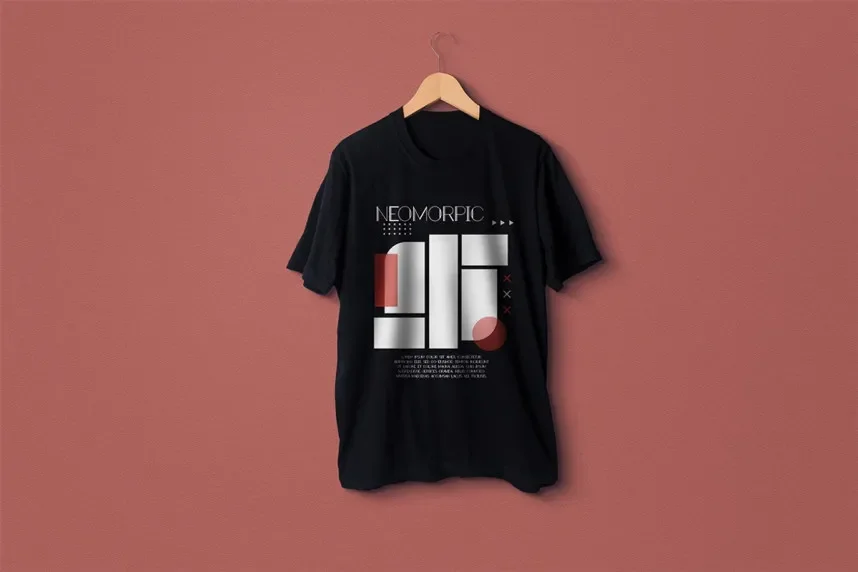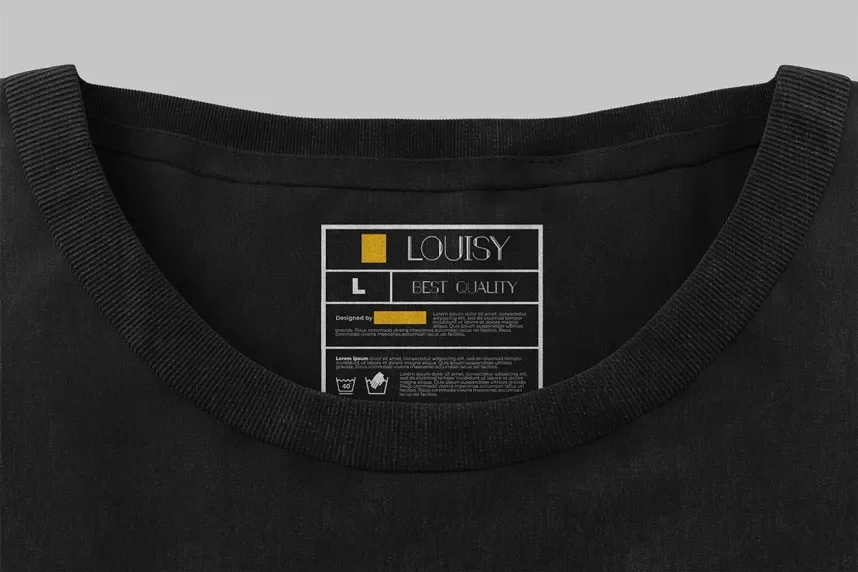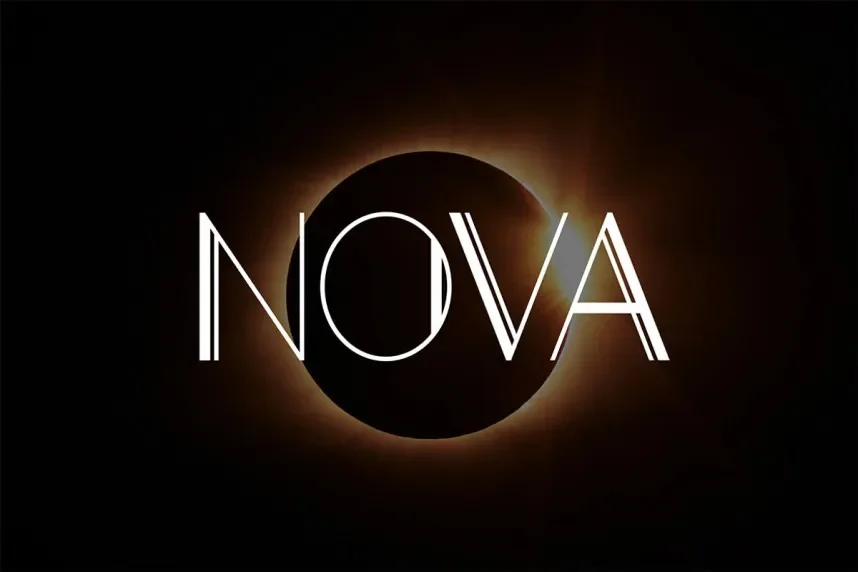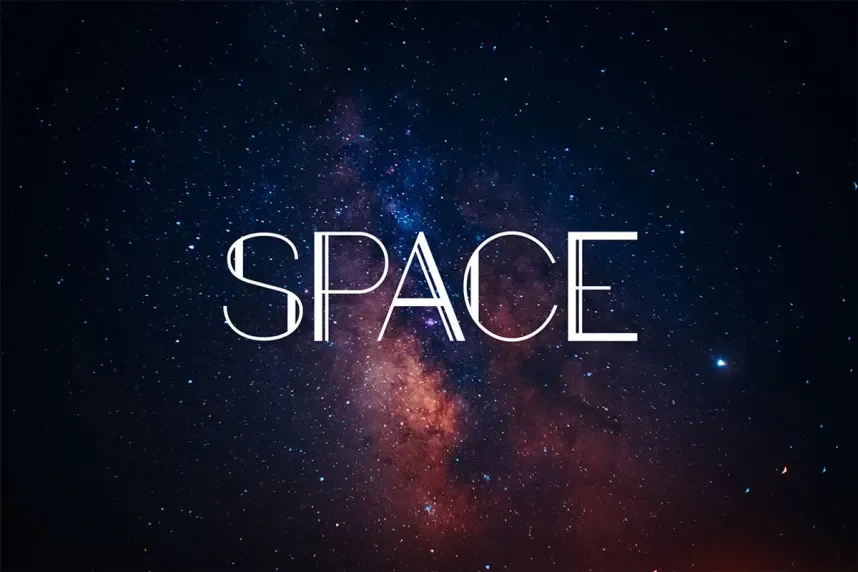
Decology Font is a bold display typeface designed for high-impact headlines, posters, and branding projects. Its clear, structured letterforms enhance readability in large-scale designs.
The typeface features geometric shapes with consistent stroke widths, sharp terminals, and open counters. Alternate glyphs and ligatures allow design flexibility, maintaining legibility while providing a distinctive visual impression.